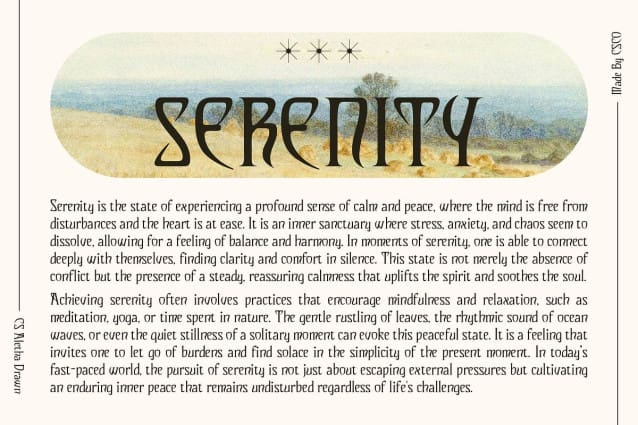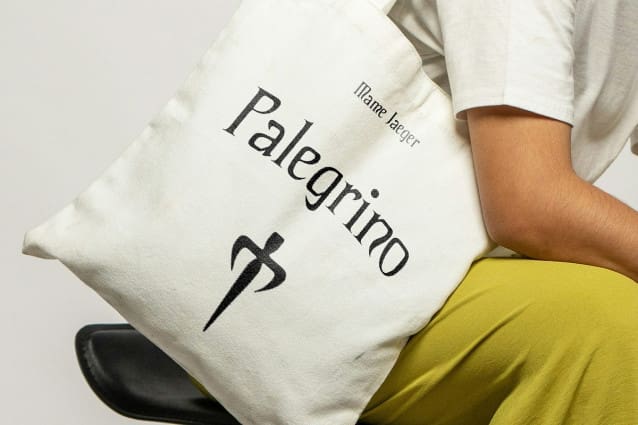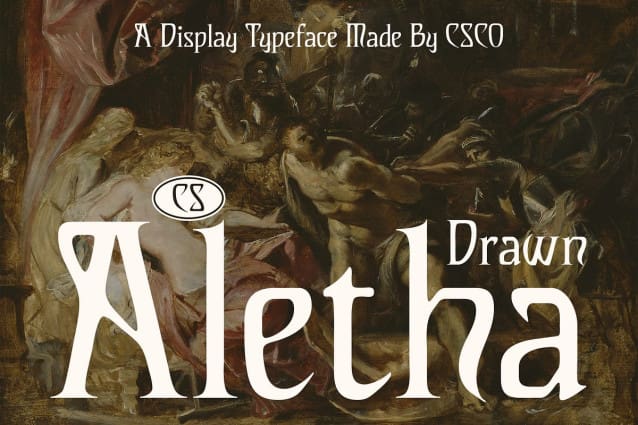
CS Aletha Drawn Font
CS Aletha Drawn Font – Classic Elegance with Artistic Flair. A Unique Fusion of Tradition and Artistry This font captures the charm of classic display serif typography while infusing it with the warmth and character of a hand-drawn effect. With bold lines and refined details, each letterform radiates a timeless elegance that speaks to the past while feeling fresh and unique. This combination makes it perfect for vintage-inspired projects and designs that call for sophistication and style, bridging heritage with an artistic touch.
Hand-Drawn Detail for a Crafted, Authentic Feel The drawn effect adds a subtle artisanal quality to this font, giving it the appearance of being crafted by hand. This feature brings a human element to the font, allowing each letter to carry a personal, heartfelt impression.
Perfect for Vintage-Themed and Heritage Branding With its vintage flair and elegant design, this drawn font shines in heritage branding, editorial layouts, and any project that calls for a nostalgic touch. Its sophisticated yet approachable look makes it well-suited for upscale branding, book covers, and formal invitations, providing a timeless presence that connects audiences with a sense of history and refinement.